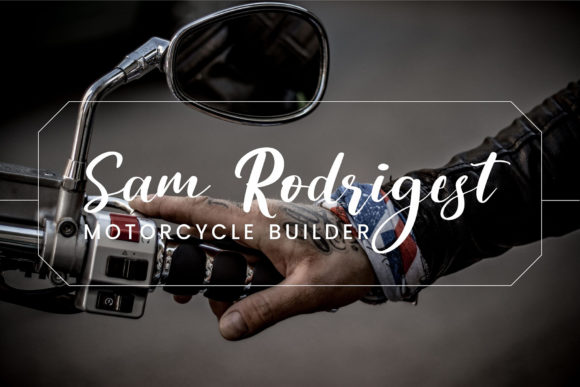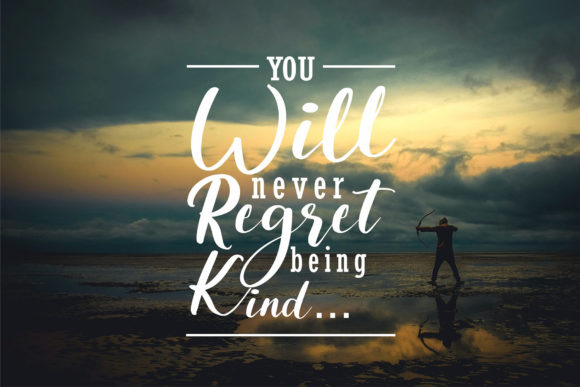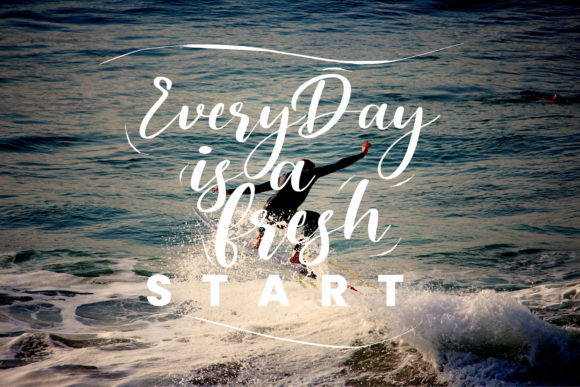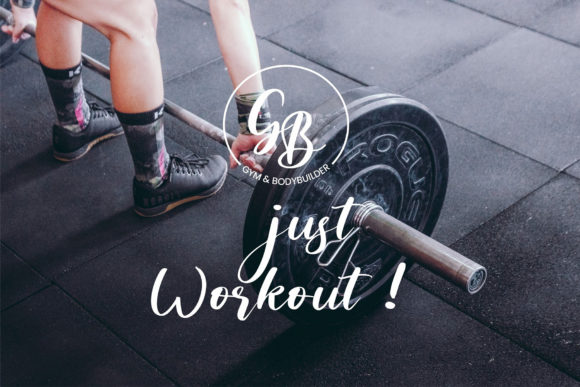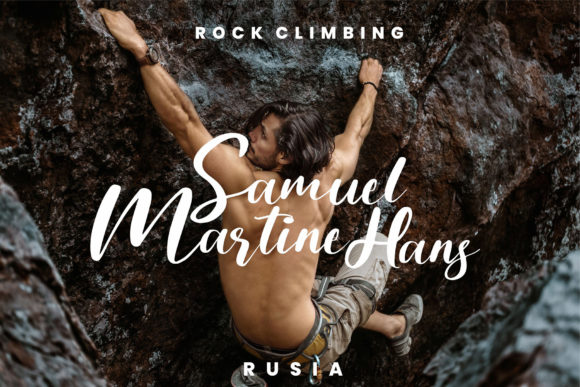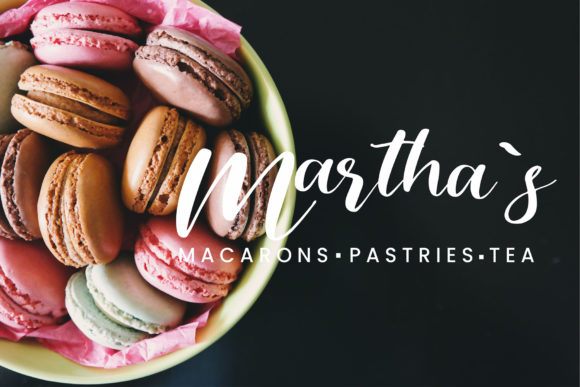
Introducing Flamer Script Font: The Perfect Blend of Modern Calligraphy
Are you a designer or crafter looking for a font that embodies the essence of modern calligraphy? Look no further than the Flamer Script Font. This stunning font is the epitome of modern calligraphy, combining strong characters with soft scripted swashes to create a truly unique and captivating visual experience.
The Characteristics of Flamer Script Font
Flamer Script Font boasts a distinctive style that sets it apart from other fonts. Its strong characters provide a sense of stability and structure, while the soft scripted swashes add a touch of elegance and sophistication. The font’s modern calligraphy style makes it perfect for a wide range of design projects, from wedding invitations and branding materials to packaging and advertising.
What Makes Flamer Script Font So Versatile?
One of the key features that makes Flamer Script Font so versatile is its ability to be used in a variety of design contexts. Whether you’re creating a formal invitation or a playful brand identity, this font can adapt to suit your needs. The font’s strong characters provide a solid foundation, while the soft scripted swashes can be used to add a touch of whimsy and personality.
The Benefits of Using Flamer Script Font
So why should you choose Flamer Script Font for your design projects? Here are just a few benefits of using this amazing font:
- Unique and eye-catching: Flamer Script Font is a true showstopper, with its bold characters and flowing swashes grabbing the attention of anyone who sees it.
- Versatile: This font can be used in a wide range of design contexts, from formal to playful.
- Elegant and sophisticated: The soft scripted swashes add a touch of elegance and sophistication to any design.
- Easy to read: Despite its ornate style, Flamer Script Font is surprisingly easy to read, making it perfect for body text as well as headlines.
How to Use Flamer Script Font in Your Designs
So how can you incorporate Flamer Script Font into your designs? Here are a few ideas to get you started:
- Wedding invitations: Flamer Script Font is perfect for wedding invitations, with its elegant and sophisticated style making it ideal for formal events.
- Branding materials: Use Flamer Script Font to create a unique and eye-catching brand identity that sets you apart from the competition.
- Packaging: Add a touch of elegance and sophistication to your packaging with Flamer Script Font.
- Advertising: Use Flamer Script Font to create eye-catching headlines and attention-grabbing ads.
Tips and Tricks for Working with Flamer Script Font
Here are a few tips and tricks to help you get the most out of Flamer Script Font:
- Experiment with different sizes: Flamer Script Font looks great in a variety of sizes, from large headlines to smaller body text.
- Play with color: The font’s elegant style looks great in a range of colors, from bold and bright to soft and pastel.
- Mix and match: Don’t be afraid to combine Flamer Script Font with other fonts to create a unique and eye-catching visual experience.
In conclusion, Flamer Script Font is a truly unique and captivating font that embodies the essence of modern calligraphy. With its strong characters and soft scripted swashes, this font is perfect for a wide range of design projects, from wedding invitations and branding materials to packaging and advertising. Whether you’re a designer or crafter, Flamer Script Font is sure to inspire and elevate your designs.